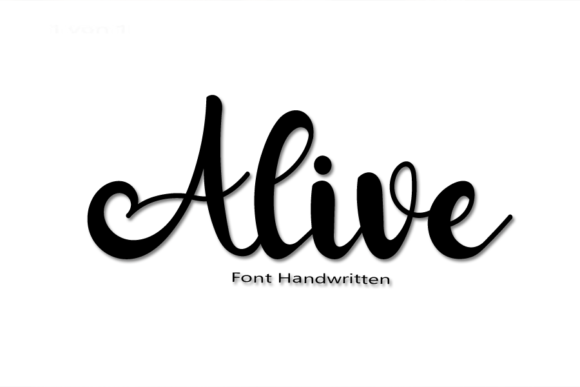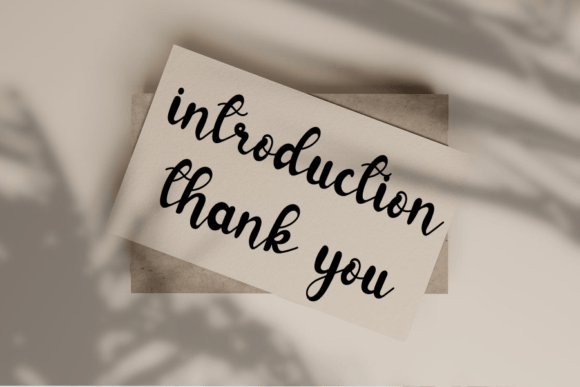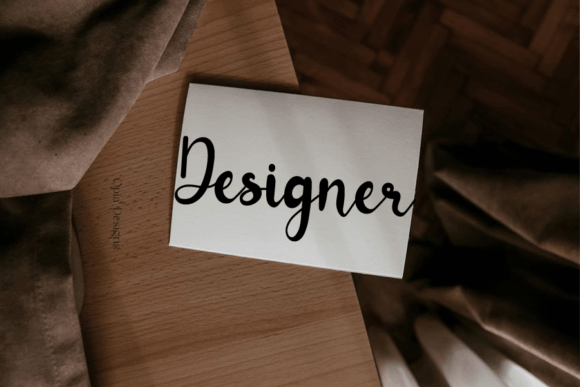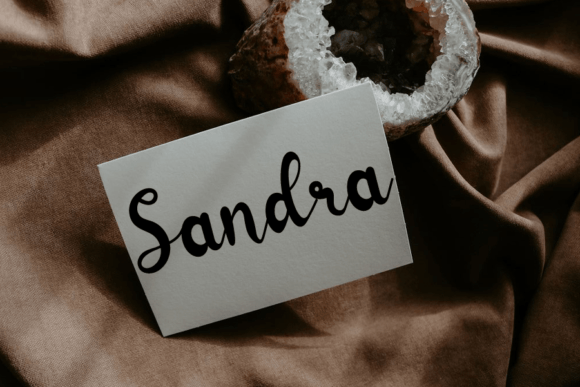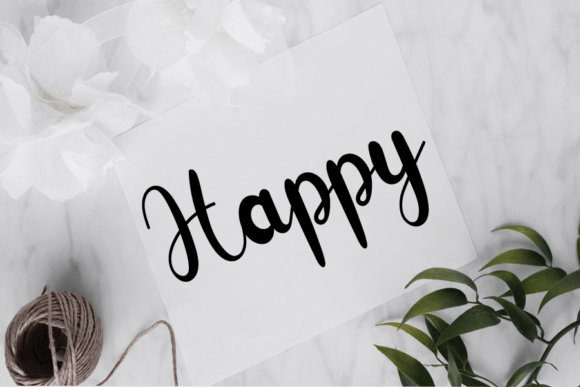
Alive Font
About Alive Font
Welcome to the world of sweetness and romance with Alive, a sweet and cursive handwritten font designed to add a touch of joy and romance to a variety of design ideas. This gentle font is crafted to look gorgeous and bring a joyful and romantic touch to each of your creative projects.
Alive stands out with its sweet and cursive handwritten design. The gentle strokes of this font add a sense of authenticity and warmth to your text, making it a perfect choice for projects that require a touch of joy and romance. Whether you’re working on invitations, branding materials, or any creative endeavor, Alive is created to enhance the visual appeal of your designs.
The versatility of Alive allows it to seamlessly integrate into various design contexts. Its sweet and cursive style makes it suitable for a wide range of applications, providing you with the flexibility to express your creativity with a touch of joy and romance.
Consider Alive not just as a font but as a design companion that adds a joyful and romantic spirit to your creations. Its sweet and cursive handwritten style makes it a valuable asset for various design projects, allowing you to infuse your work with a delightful charm. Let Alive be the font that brings your most cherished creative ideas to life with joy and romance.